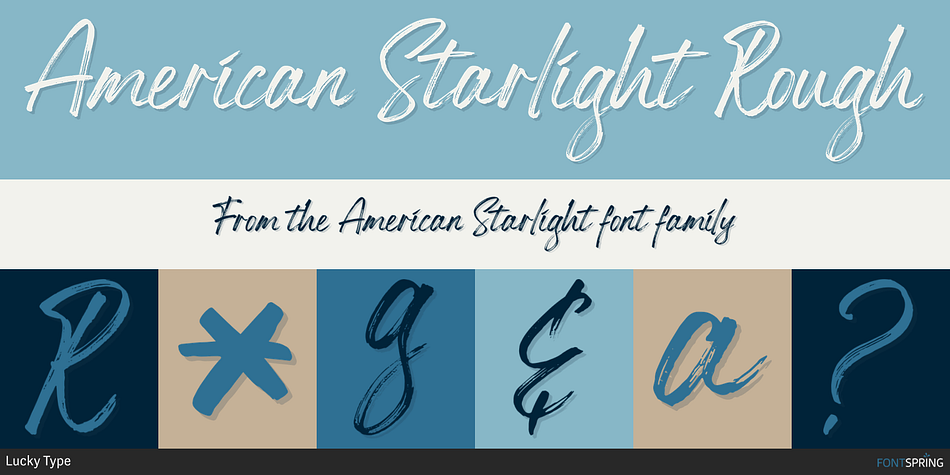
American Starlight Rough
American Starlight is a multiple classification font family. This typeface has six styles and was published by Lucky Type.
American Starlight is a retro-looking sans serif font combined with a beautiful handwritten script font. With its beautiful combination, American Starlight will be perfect for logo designs, book titles, movie posters, social media posts, and more. American Starlight is a bold sans serif combined with a stunning script font that comes in 4 styles and has 26 swashes that will enhance your designs. It is made with great care and introduces it with a great presentation.